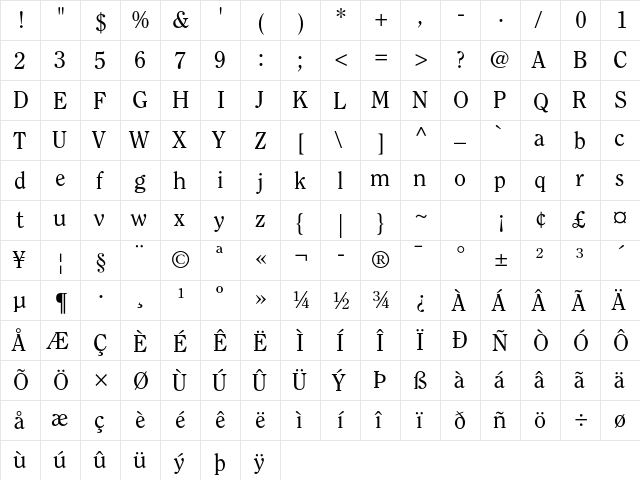
ITC Clearface Std Regular
| Designer | Vic Caruso |
Design Context for ITC Clearface Std Typeface
ITC Clearface Std is a composed and adaptable typeface that performs quietly and consistently across a wide range of design contexts.